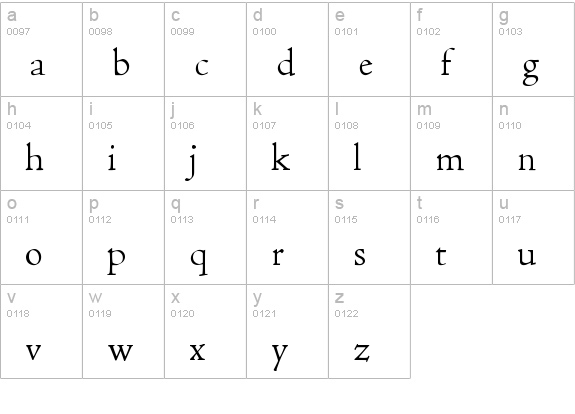
Adobe Jenson Pro Light Font Details
Adobe Jenson Pro Light is a refined, elegant variant in the Adobe typeface family \xE2\x80\x94 well suited to elegant body text, refined sub-headings, and luxury branding.